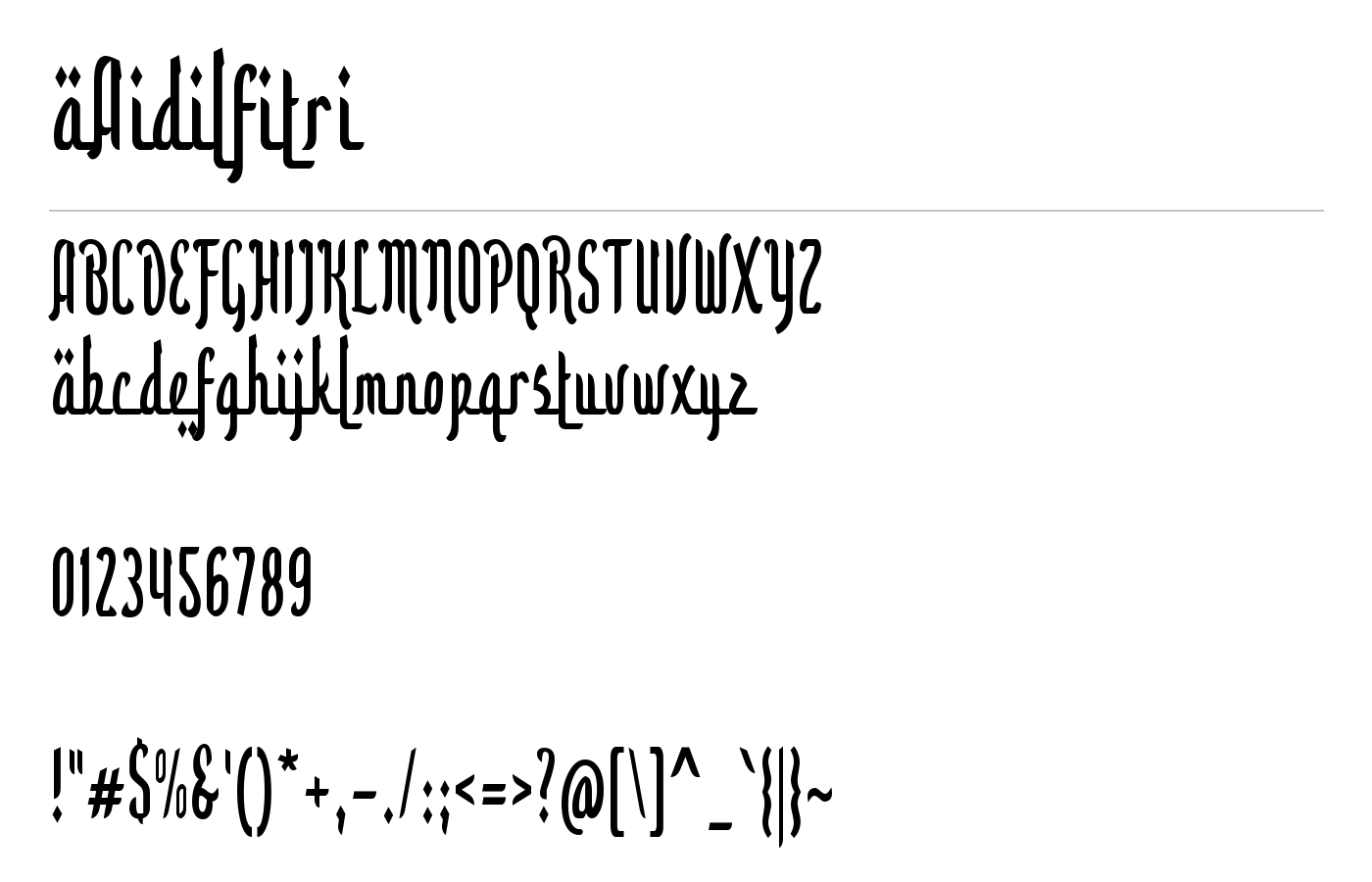
aAidilfitri is a condensed serif font with a distinctive vintage and ornamental style, featuring narrow letterforms and high stroke contrast that give it an elegant yet slightly quirky character. Its tall, slender shapes and unique details, such as the diamond accents on certain letters, make it ideal for eye-catching headlines and display use in fashion, packaging, or creative branding that seeks a sophisticated but unconventional look. This font works best where a striking and memorable impression is desired without sacrificing readability.
aAidilfitri Font
About aAidilfitri Font